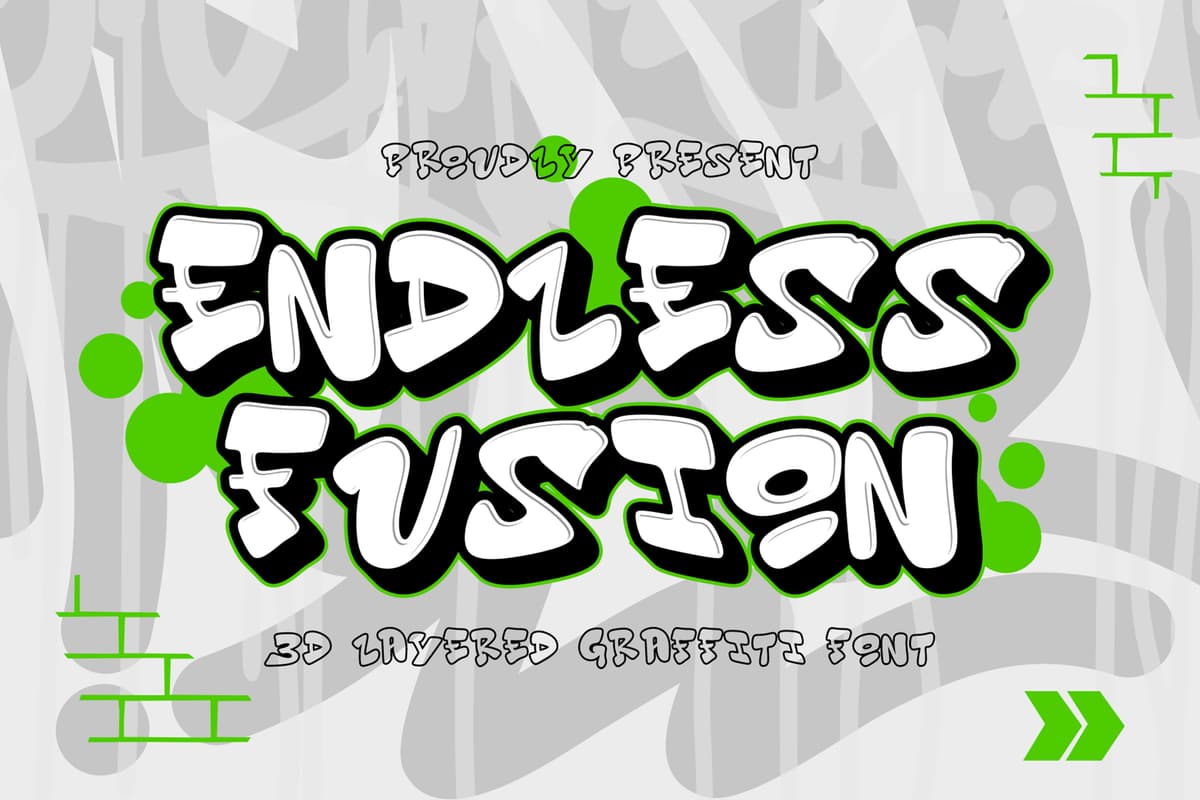
Endless Fusion Outline
Endless Fusion is a best-selling 3D layered graffiti font that revolutionizes the art of typography with its bold and dynamic design. This font combines the raw energy of graffiti with a modern 3D twist, making it a standout choice for any project that requires a powerful and unique visual presence.